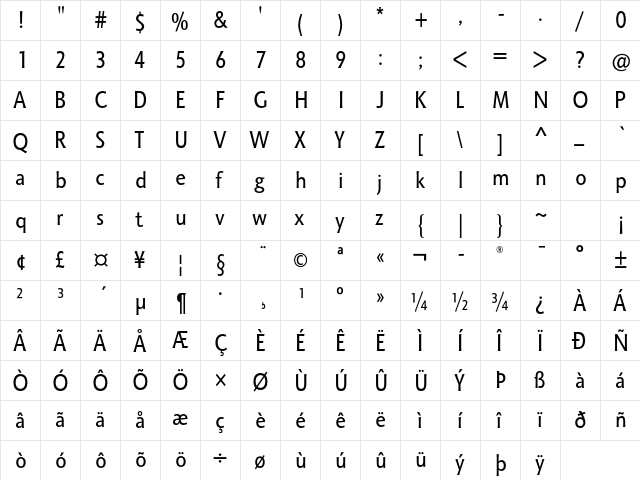
Octone ITC Std Regular
| Designer | Eric de Berranger |
Design Context for Octone ITC Std Typeface
Octone ITC Std is a composed and adaptable typeface that performs quietly and consistently across a wide range of design contexts.